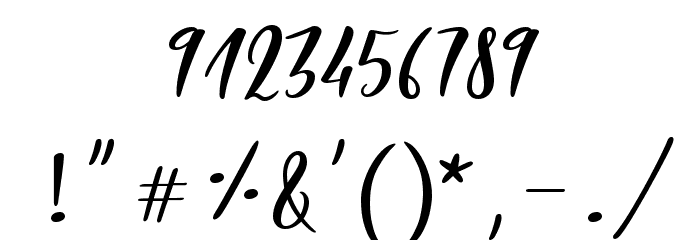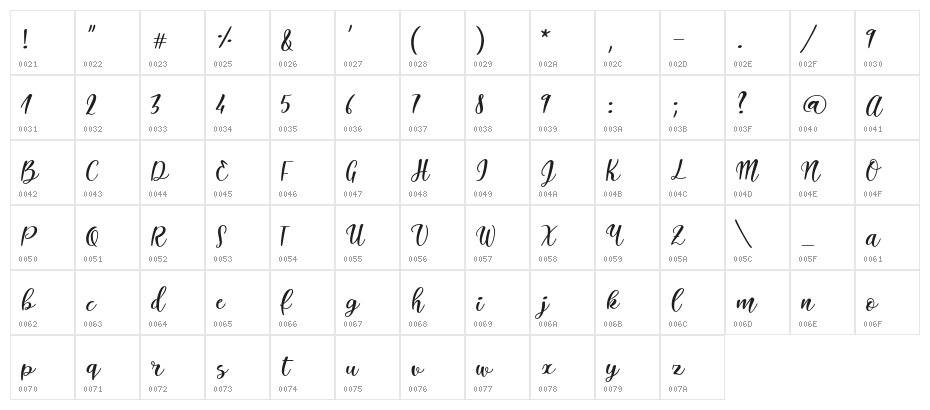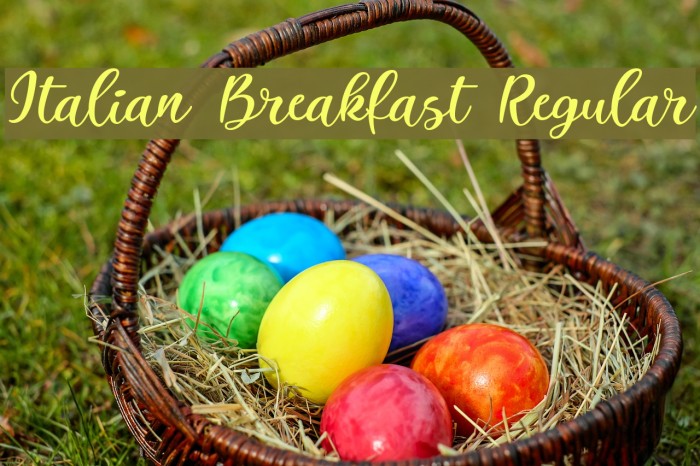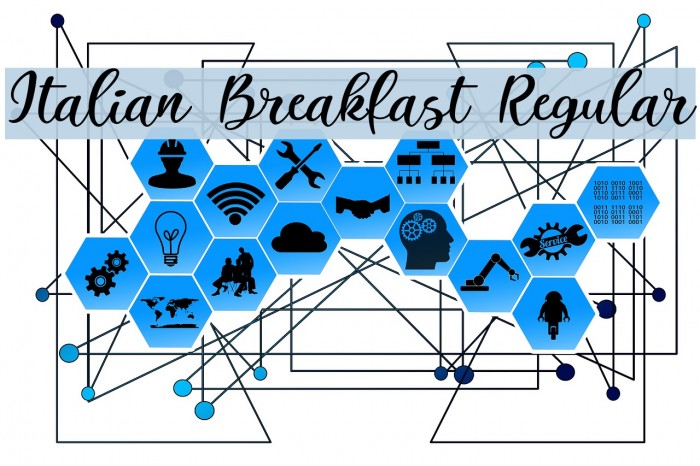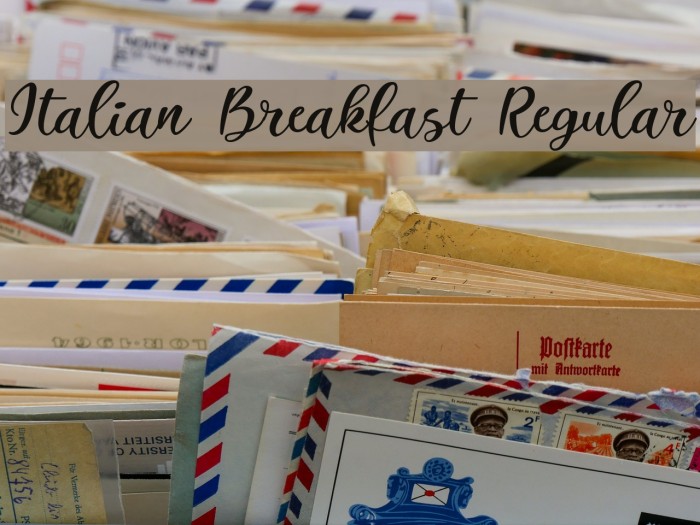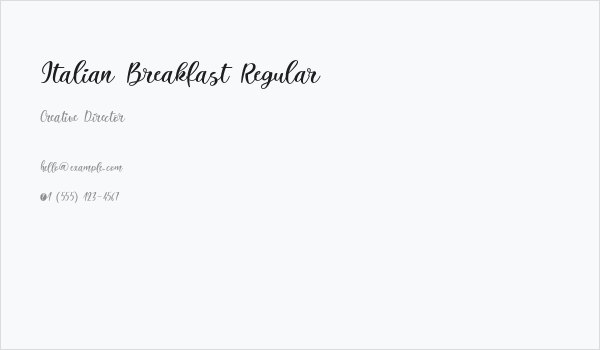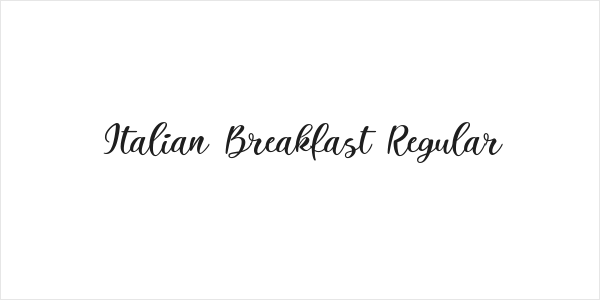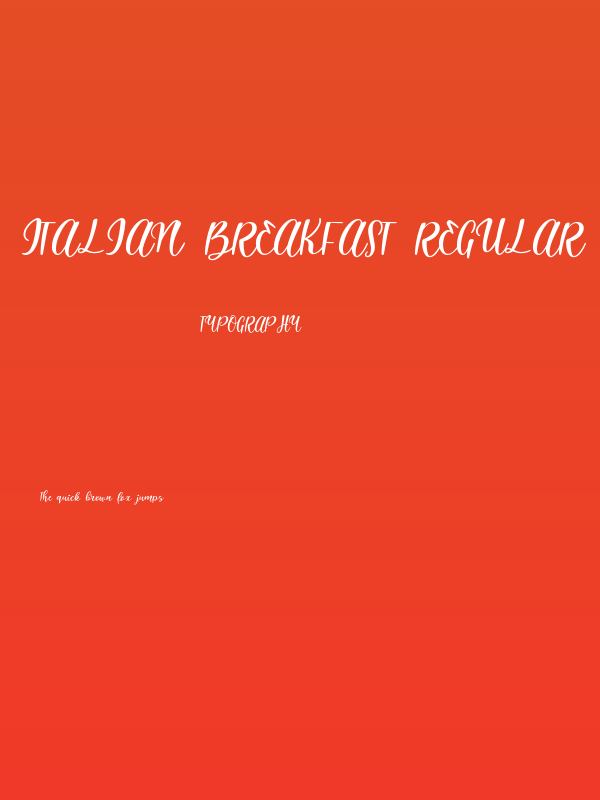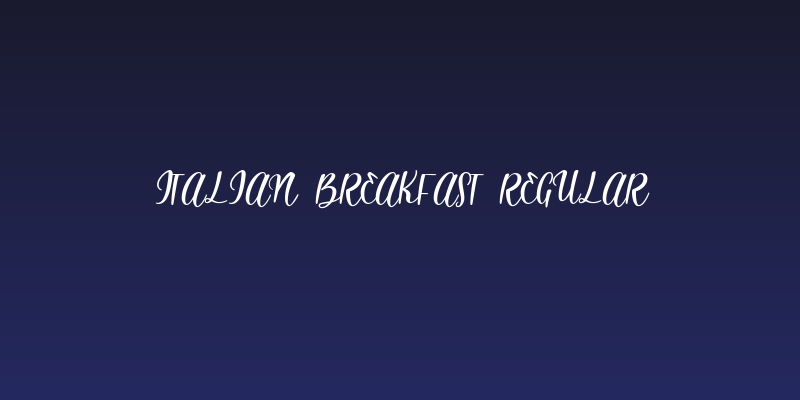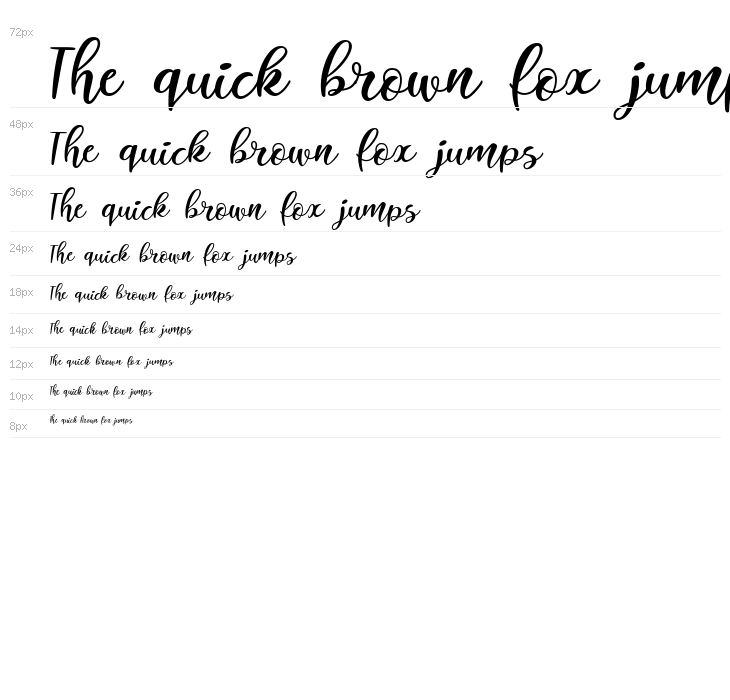
Italian Breakfast Regular Font
Italian Breakfast Regular Description
This elegant script font features flowing, cursive letters with a smooth and sophisticated appearance. The uppercase letters are bold and slightly slanted, giving a sense of movement and grace. The lowercase letters maintain a consistent style, with rounded edges and a fluid connection between characters. The numerals are clear and easy to read, complementing the overall aesthetic. Special characters are designed with the same attention to detail, ensuring a cohesive look across all text elements. This font exudes a sense of elegance and charm, making it suitable for a variety of creative projects.